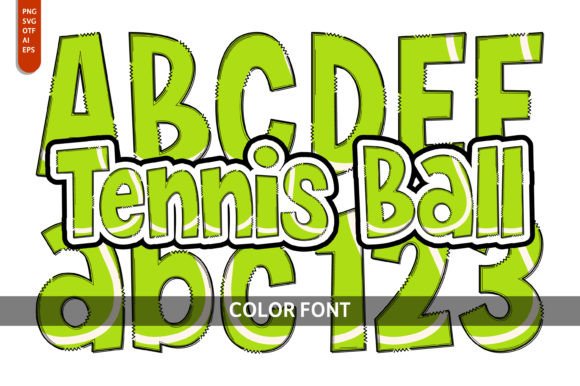
Step into the world of boundless creativity with Tennis Ball Font, a vibrant and enchanting typeface that adds a pop of color to your designs. This extraordinary font family, crafted by Imagination Switch, is designed to transport you to a realm of playful artistry, transforming your projects into captivating masterpieces.
Unleash the boundless potential of Tennis Ball Font and let your imagination soar. Its vibrant hues and whimsical characters will ignite your creativity, beckoning you to explore new design horizons. Dive into a world of limitless possibilities, where every word, every design element, and every creation comes alive with a joyful spirit.
Picture your designs adorned with the playful charm of Tennis Ball Font. Imagine children's books bursting with whimsy, posters exploding with vibrant energy, and invitations radiating an infectious joy. This font is your gateway to a world of artistic delight, where your designs become more than just visuals - they become experiences.
With Tennis Ball Font, you hold the key to unlocking the hearts of your audience. Its playful nature and captivating colors create an instant connection, drawing them into your designs and captivating their attention. Let your words dance across the page, infused with personality, warmth, and an undeniable charm.
Immerse yourself in the boundless creativity of Tennis Ball Font and witness the transformation of your designs. Its vibrant energy and playful spirit will infuse your projects with a new sense of life, leaving a lasting impression on your audience. Experience the joy of creating with Tennis Ball Font today, and embark on a journey of artistic exploration like never before.